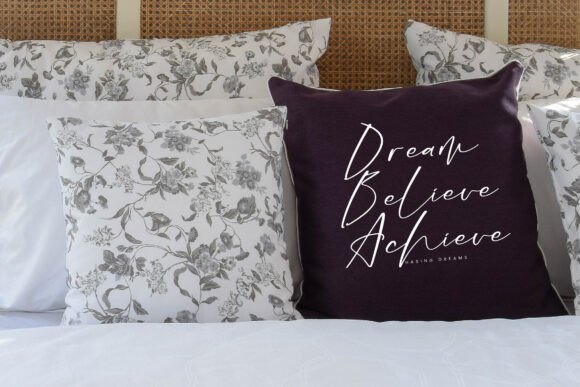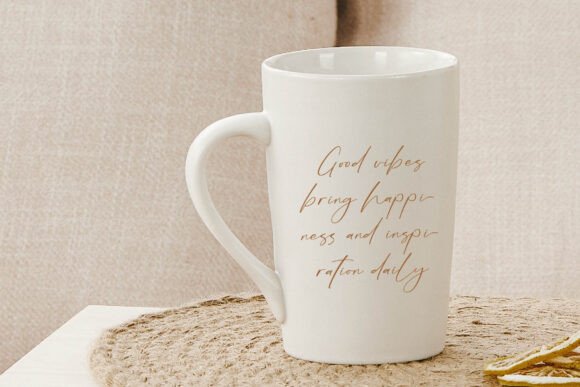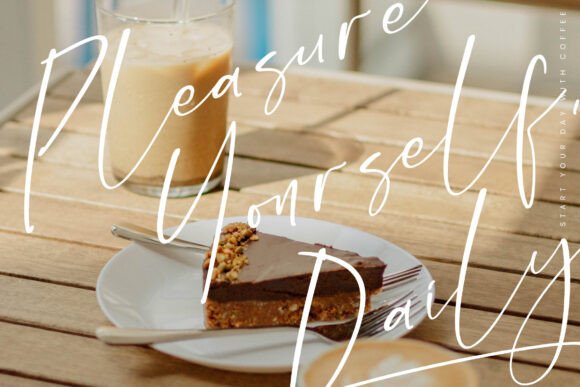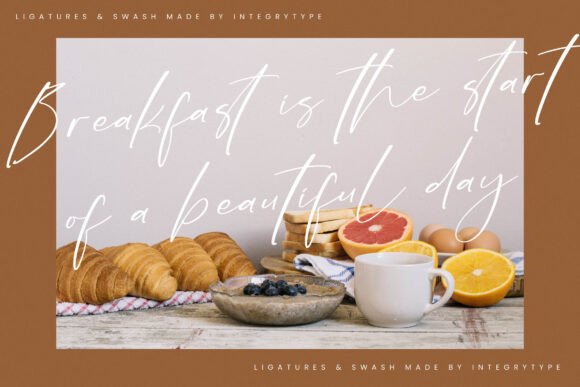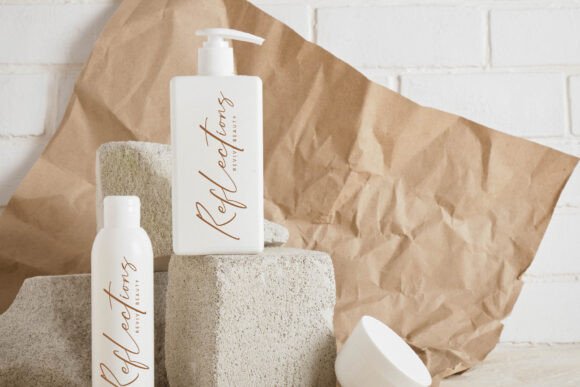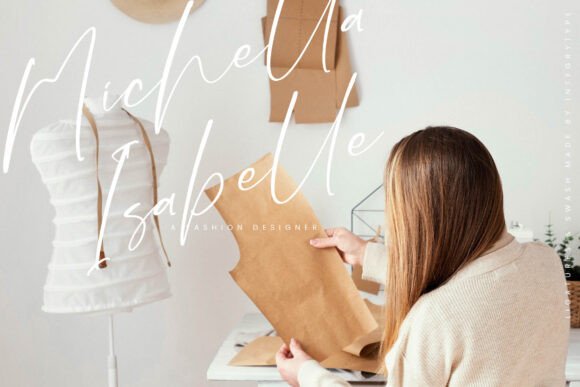
Introducing Bluebell Twilight Font: Elevate Your Designs with Elegance
Are you a designer or crafter looking for a stylish and sophisticated font to elevate your projects? Look no further than Bluebell Twilight Font, a premium signature font from Integritype Studio. This stunning font is perfect for a wide range of applications, from logos and branding projects to homewares designs, product packaging, and more.
What is Bluebell Twilight Font?
Bluebell Twilight Font is a beautifully crafted font that exudes elegance and sophistication. Its unique design makes it perfect for projects that require a touch of luxury and premium taste. Whether you’re working on a logo, business card, or packaging design, this font is sure to impress.
Key Features of Bluebell Twilight Font
- Stylish and Sophisticated Design: Bluebell Twilight Font features a unique and elegant design that’s perfect for high-end projects.
- Versatile: This font is suitable for a wide range of applications, from logos and branding projects to homewares designs, product packaging, and more.
- Premium Taste: Bluebell Twilight Font is designed to add a touch of luxury to your projects, making it perfect for designers and crafters who want to create high-end designs.
Bluebell Twilight Font is perfect for any project that requires a stylish and sophisticated font. Here are some examples of projects that this font is well-suited for:
- Logos and Branding Projects: Create a lasting impression with a custom logo or branding project that features Bluebell Twilight Font.
- Homewares Designs: Add a touch of elegance to your homewares designs, such as ceramics, textiles, and more.
- Product Packaging: Make your product packaging stand out with Bluebell Twilight Font, perfect for luxury goods and high-end products.
- Mugs and Drinkware: Create beautiful and functional designs for mugs, cups, and other drinkware.
- Quotes and Posters: Add a touch of sophistication to your quotes and posters with Bluebell Twilight Font.
- Shopping Bags and Packaging: Create eye-catching and stylish shopping bags and packaging with this premium font.
- T-Shirts and Apparel: Design stunning t-shirts and apparel with Bluebell Twilight Font, perfect for fashion brands and designers.
- Covers and Books: Add a touch of elegance to your book covers and designs with this beautiful font.
- Business Cards and Stationery: Create professional and stylish business cards, letterheads, and other stationery with Bluebell Twilight Font.
- Invitation Cards and Greeting Cards: Design beautiful and sophisticated invitation cards and greeting cards for special occasions.
- Labels and Watermarks: Use Bluebell Twilight Font to create stylish labels and watermarks for your products or designs.
Why Choose Bluebell Twilight Font?
There are many reasons why Bluebell Twilight Font is the perfect choice for your next design project. Here are just a few:
- Unique and Elegant Design: This font features a unique and elegant design that’s sure to impress.
- High-Quality and Professional: Bluebell Twilight Font is a high-quality and professional font that’s perfect for designers and crafters who want to create high-end designs.
- Support for Multiple Languages: Bluebell Twilight Font supports multiple languages, making it perfect for international designers and crafters.
Bluebell Twilight Font is a premium signature font that’s perfect for designers and crafters who want to create high-end designs. With its unique and elegant design, versatility, and high-quality craftsmanship, this font is sure to elevate your projects and add a touch of luxury. Whether you’re working on a logo, branding project, or product packaging, Bluebell Twilight Font is the perfect choice.